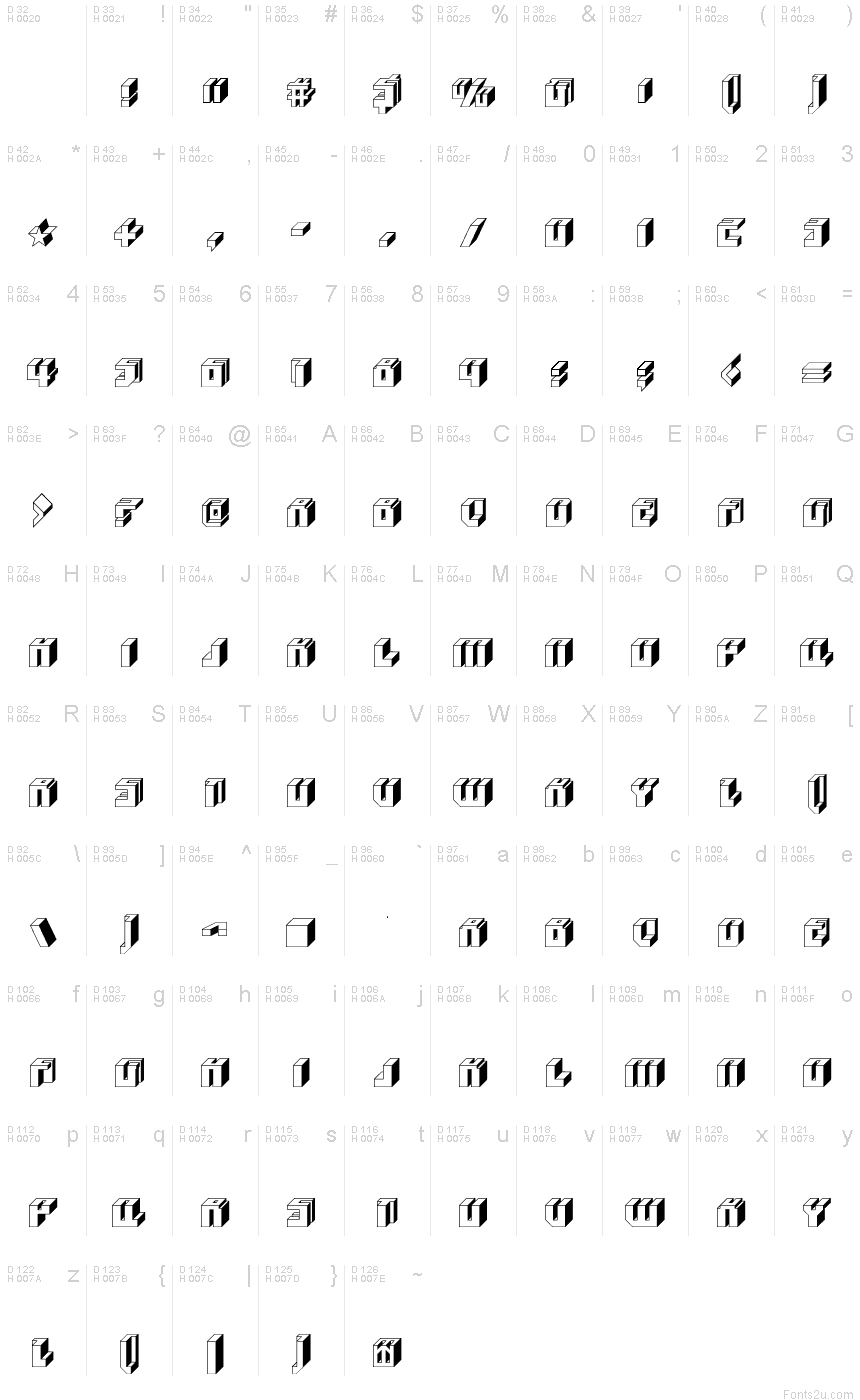
Blocked font by Harold Lohner is a free 3D display typeface that turns every word into a stack of sharp-edged cubes. Its isometric blocks, bold black outlines, and deep, inky shadows create a strong illusion of letters popping off the page, echoing classic 1970s Letraset headlines with a crisp digital bite. The rhythm of those tight, upright forms keeps even wild layouts feeling solid and engineered.
Using Blocked, your titles feel like they’ve been carved out of concrete—great for retro game logos, sci‑fi posters, event flyers, album covers, toy or tech branding, and bold YouTube thumbnails. This free font shines when you set it big and give it room to breathe; pair it with a clean geometric sans in smaller sizes to keep the 3D drama readable and grounded.
BLOCKED computer fonts v1.1 ©2000, 2005 Harold Lohner • HLohner@aol.com • www.haroldsfonts.com Adaptation of the "lost" Letraset font "BlockUp," designed by Sally Ann Grover and ©1974 Letraset in analog form.